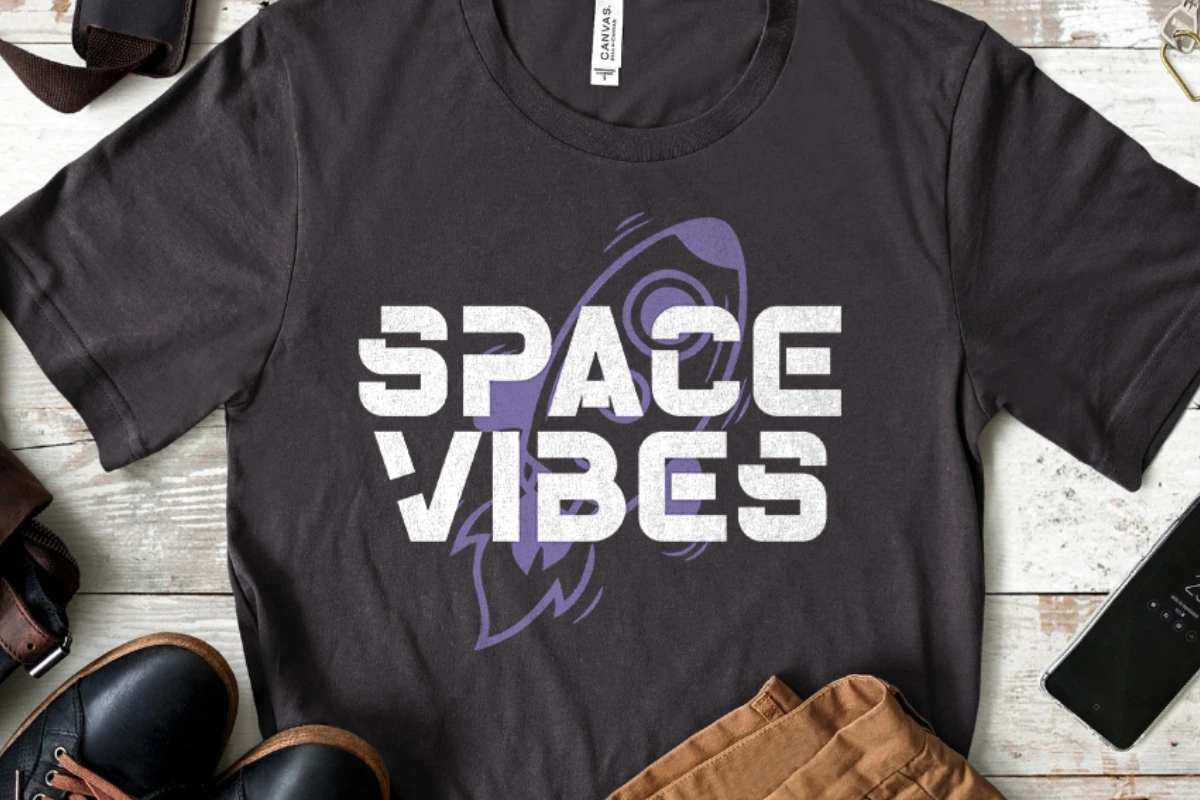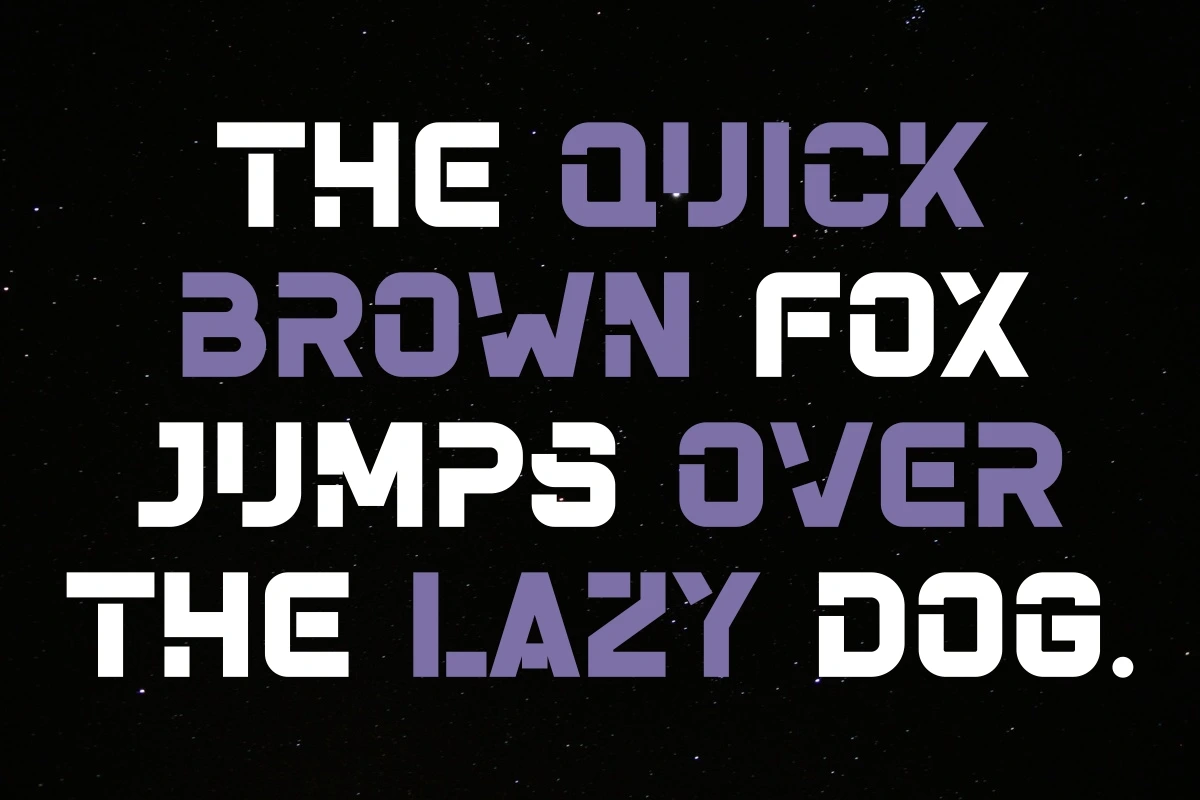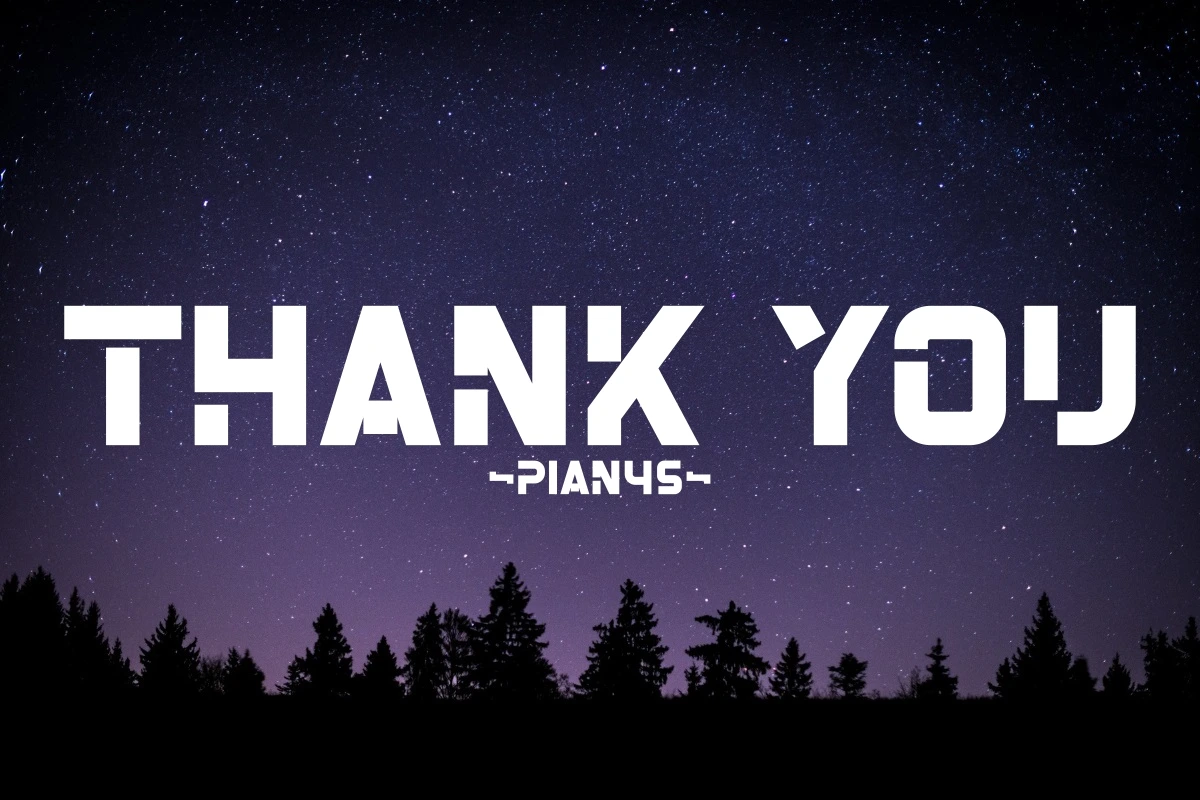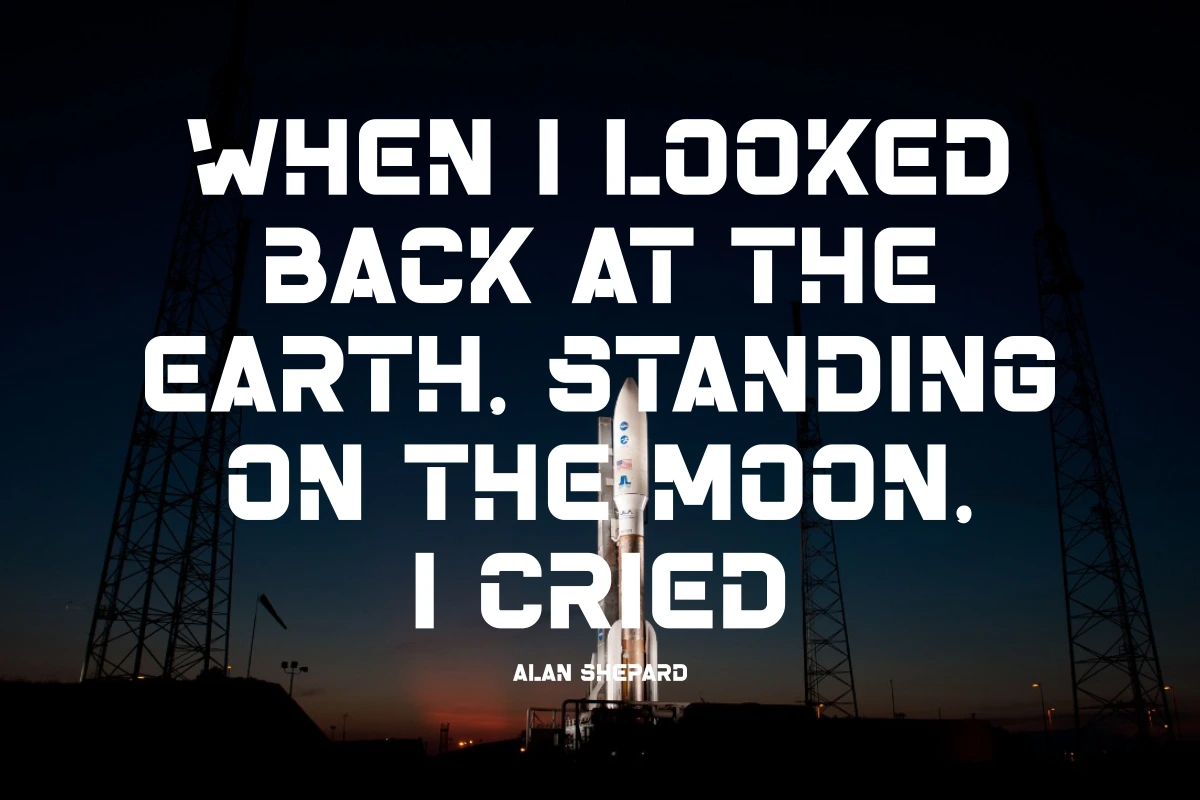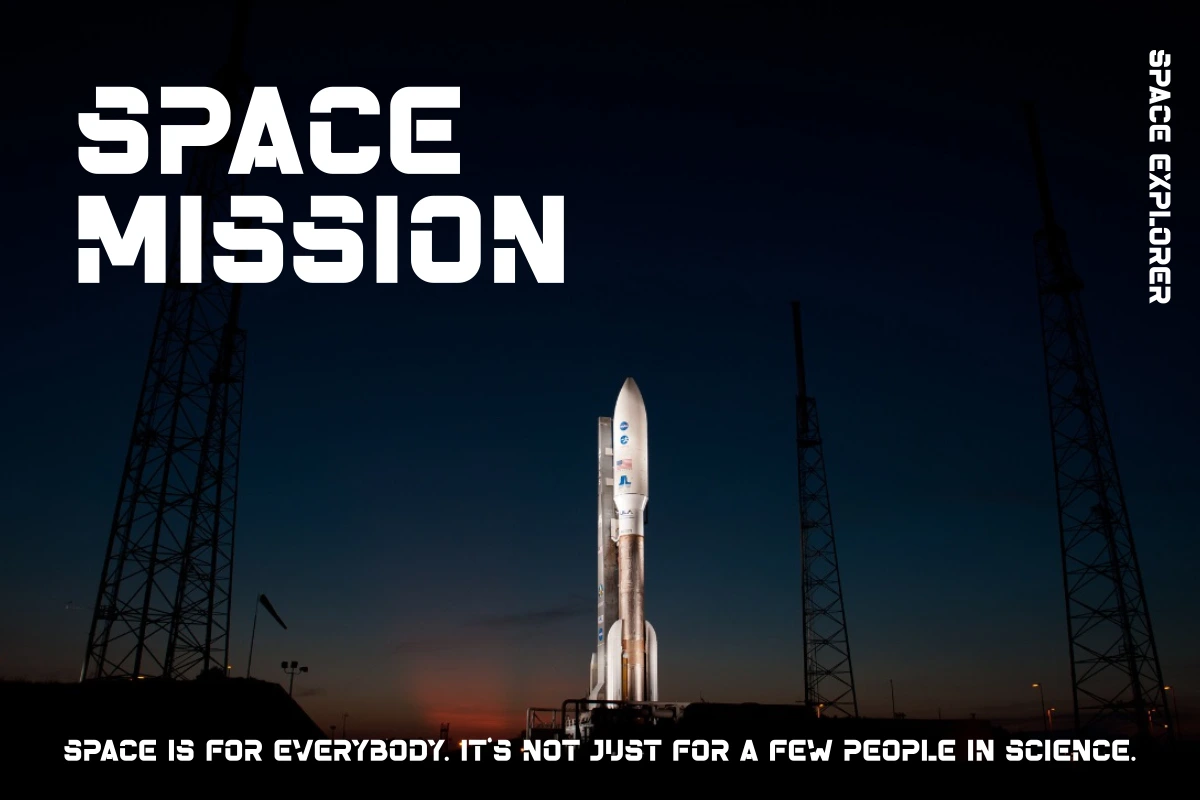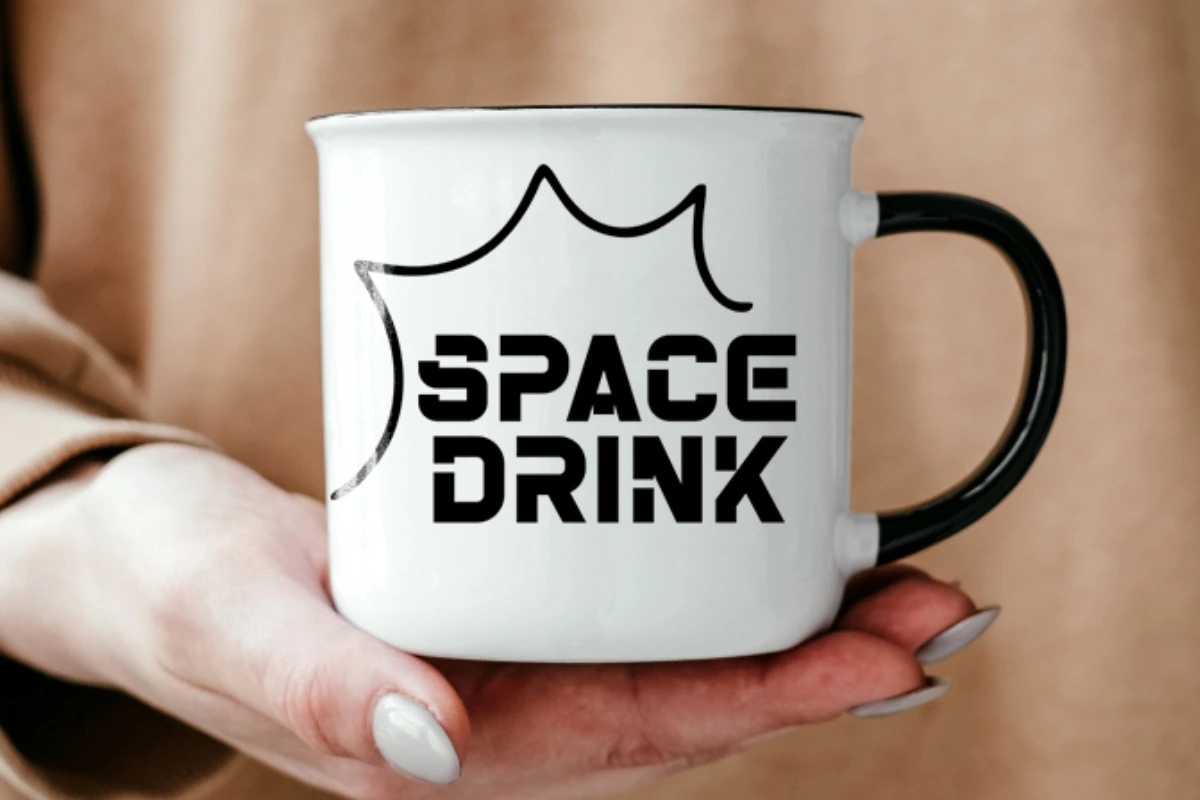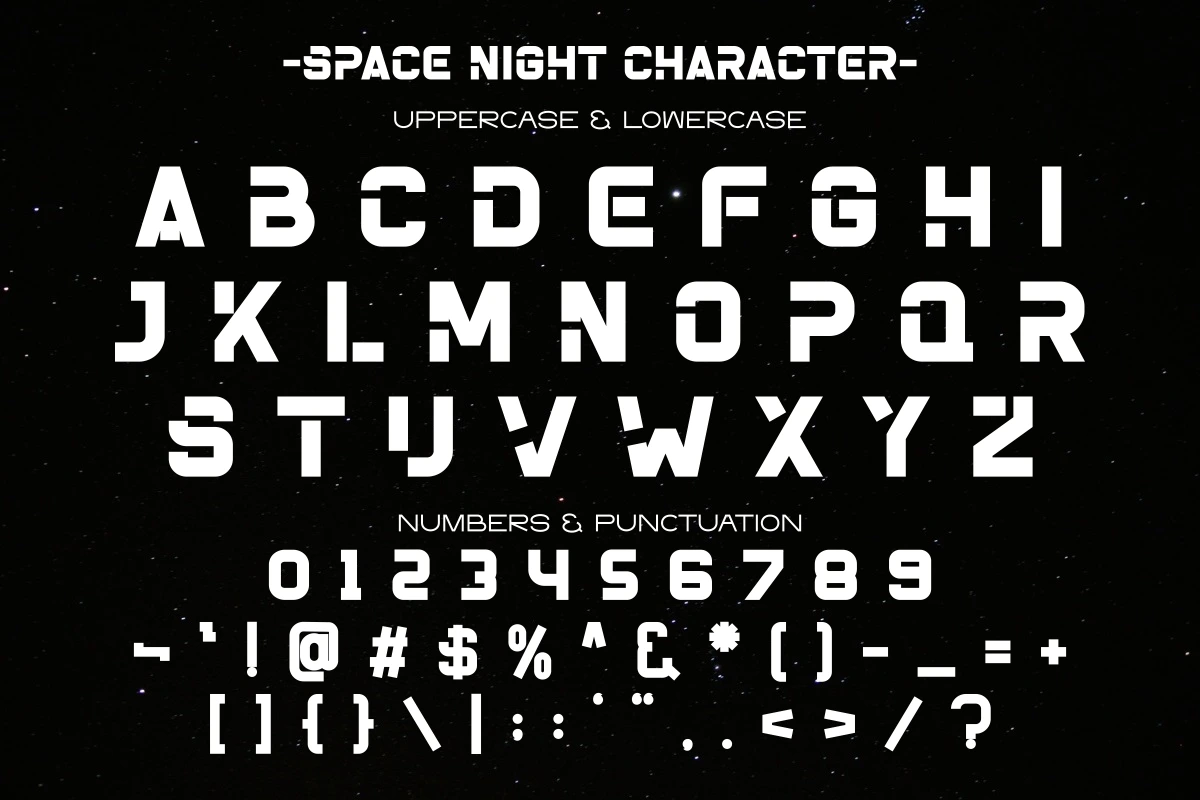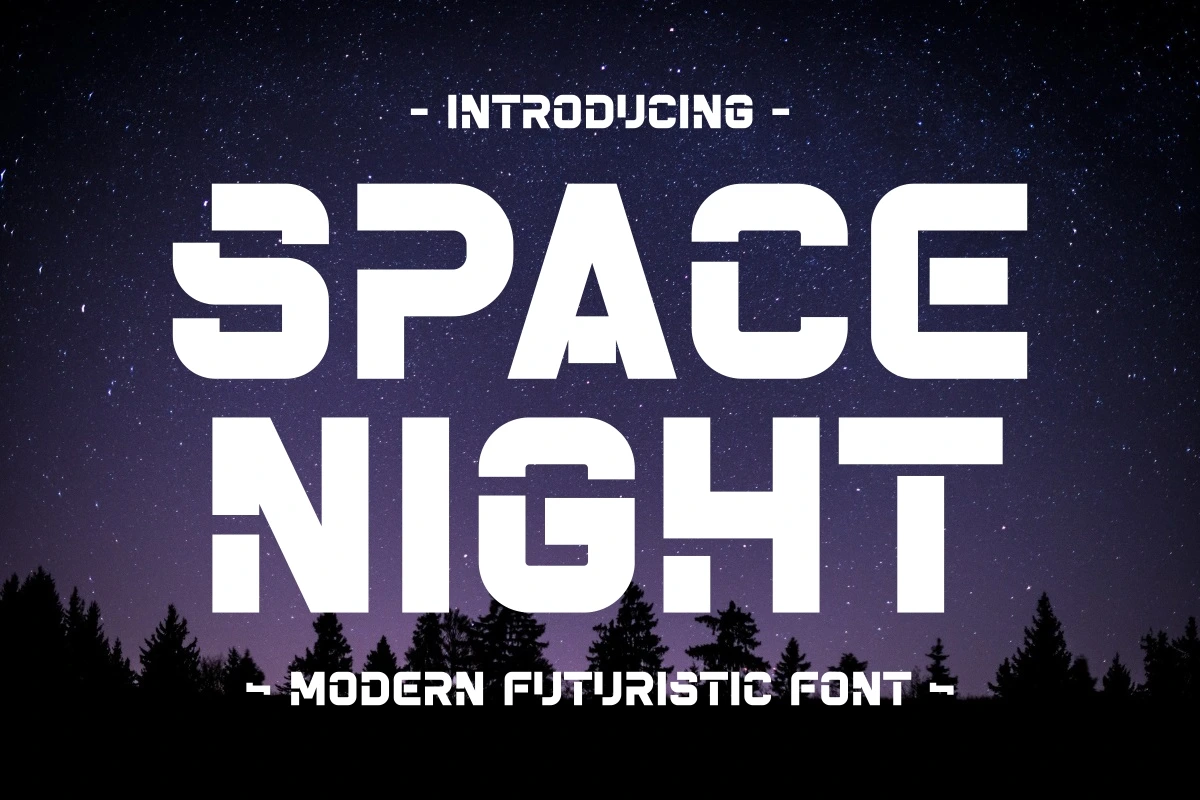
Space Night - Modern Futuristic Font
Introducing Space Night – a bold modern futuristic font designed to elevate your creative projects to a new galaxy. Inspired by sci-fi aesthetics, digital technology, and the mystery of outer space, this typeface combines geometric precision with sleek modernity.
Perfect for logos, posters, UI design, gaming titles, movie covers, and tech branding, Space Night brings a strong visual identity that captures innovation and imagination. Its sharp lines and futuristic forms make it ideal for projects that demand a cutting-edge, cosmic look.